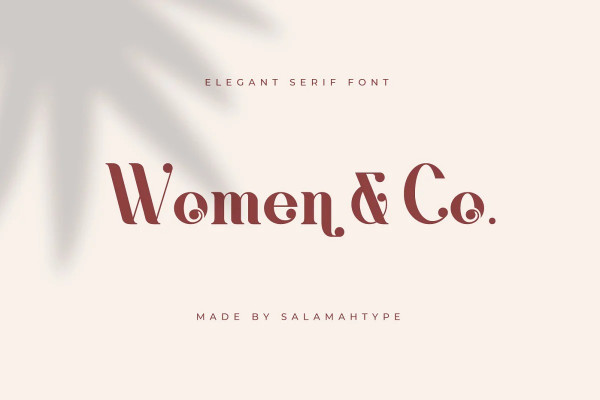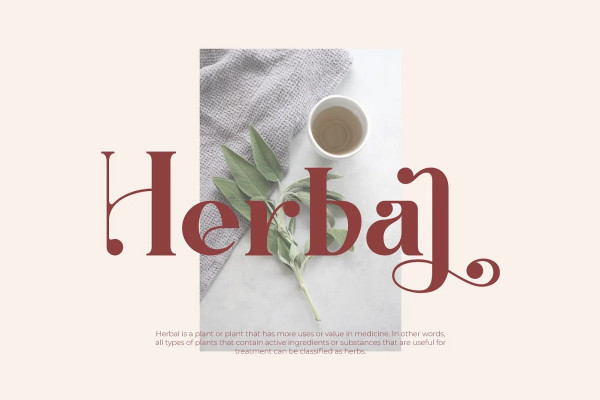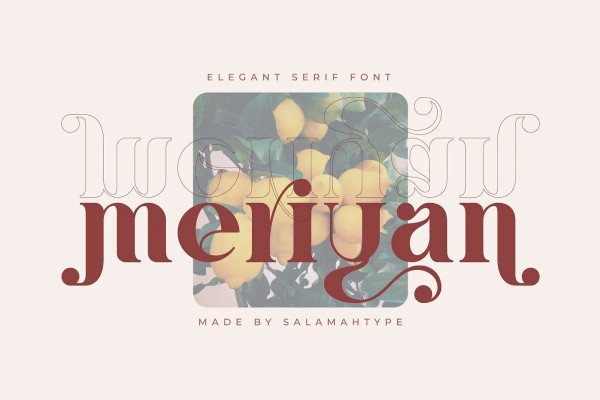
Meriyan Font
Meriyan Font comes in a serif style with lots of unique alternate characters that can be combined with one another. suitable for those of you who like masculine font styles and look different.
This font is perfect for branding projects, logos, social media posts, advertisements, product packaging, product designs, label, photography, watermark, wedding invitations and so much more.